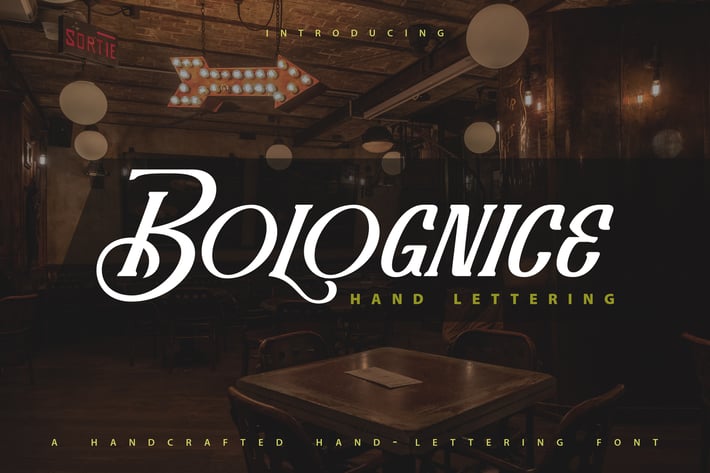
Bolognice | Handcrafted Hand-Lettring Font
Bolognice | Handcrafted Hand-Lettring Font with a calligraphy style, So beautiful on invitation like greeting cards, branding materials, business cards, quotes, posters, and more!